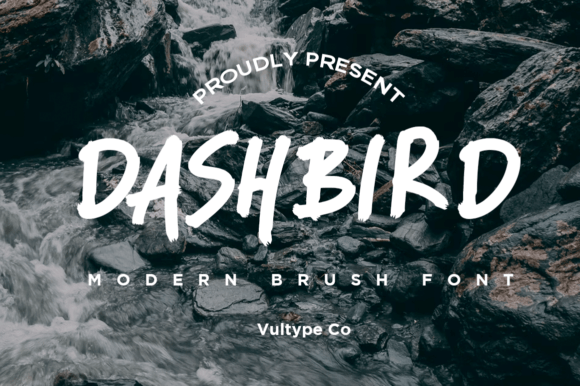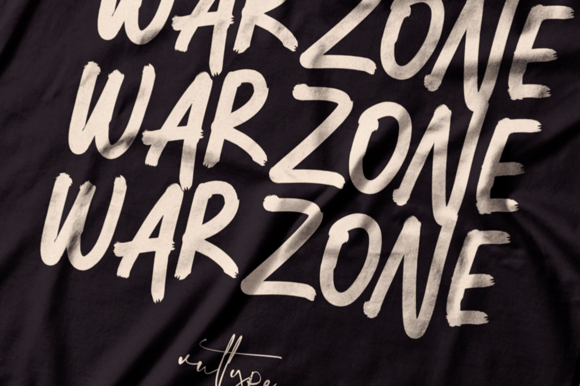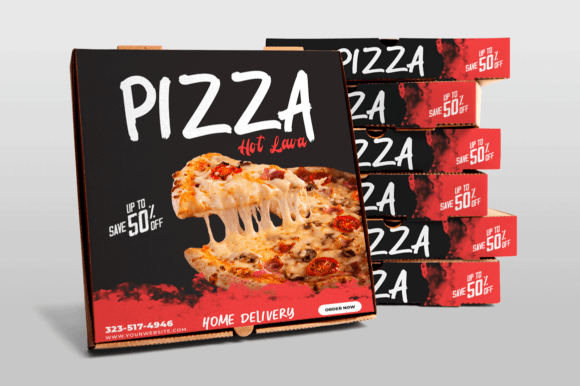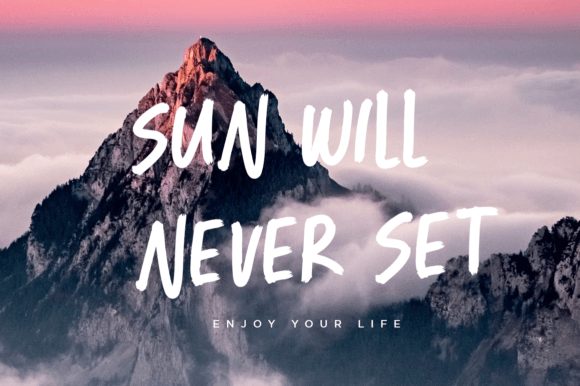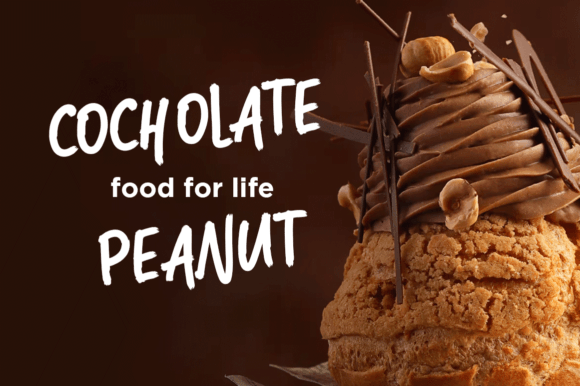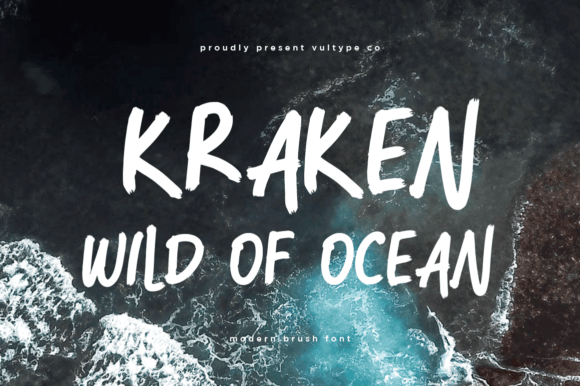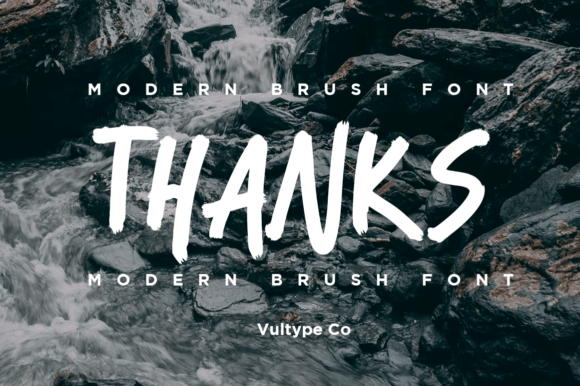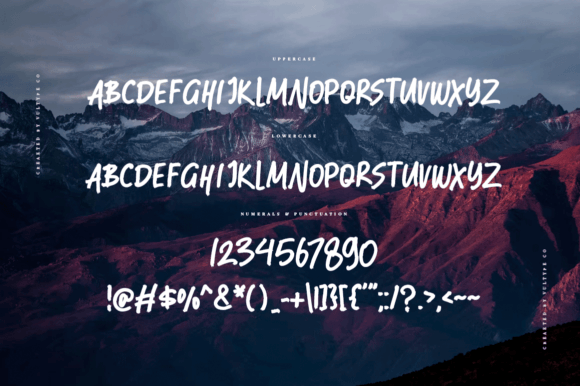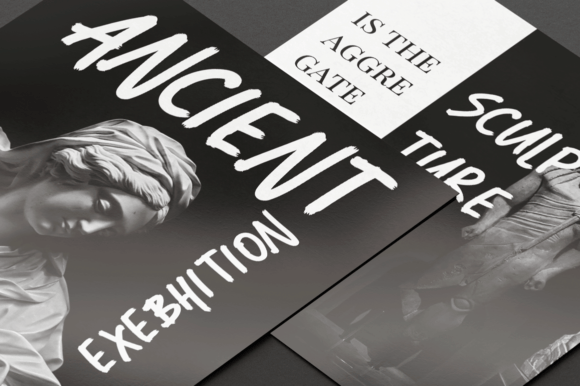
Dashbird Font
About Dashbird Font
Dashbird is a meticulously crafted font featuring a brush texture, capturing the authenticity of handwritten brush strokes with exceptional precision. Its sharp and accurate design replicates the appearance of text created by a brush pen, ensuring a realistic and genuine handwritten feel in your projects.
The font’s attention to detail and sharp brush texture make it a standout choice for various applications, including logos, branding projects, posters, social media graphics, product packaging, invitations, and more. Dashbird’s authenticity adds a touch of artistic flair to your designs, creating visually appealing and dynamic text elements.
With its sharp and precise brush texture, Dashbird brings an element of creativity and handcrafted authenticity to your projects. Whether you’re designing a logo that needs a bold and expressive touch or crafting eye-catching posters with dynamic text, Dashbird’s realistic brush strokes add a sense of energy and creativity to your designs.
Incorporating Dashbird into your projects allows you to showcase text that appears as if it was meticulously crafted by hand. Its sharp and accurate brush texture elevates your designs, making them stand out with a genuine and artistic appeal. Embrace the realistic and precise nature of Dashbird, and let it bring an authentic brush pen experience to your creative endeavors.